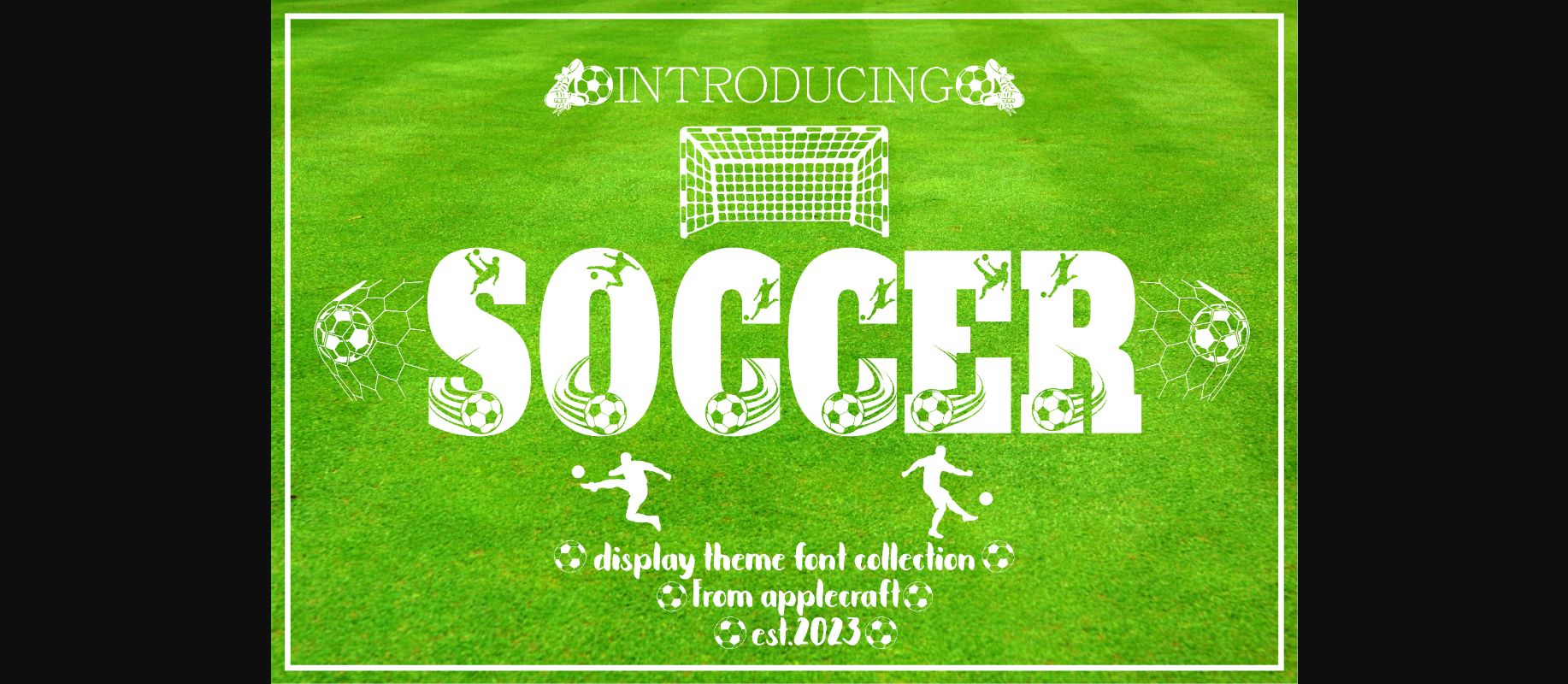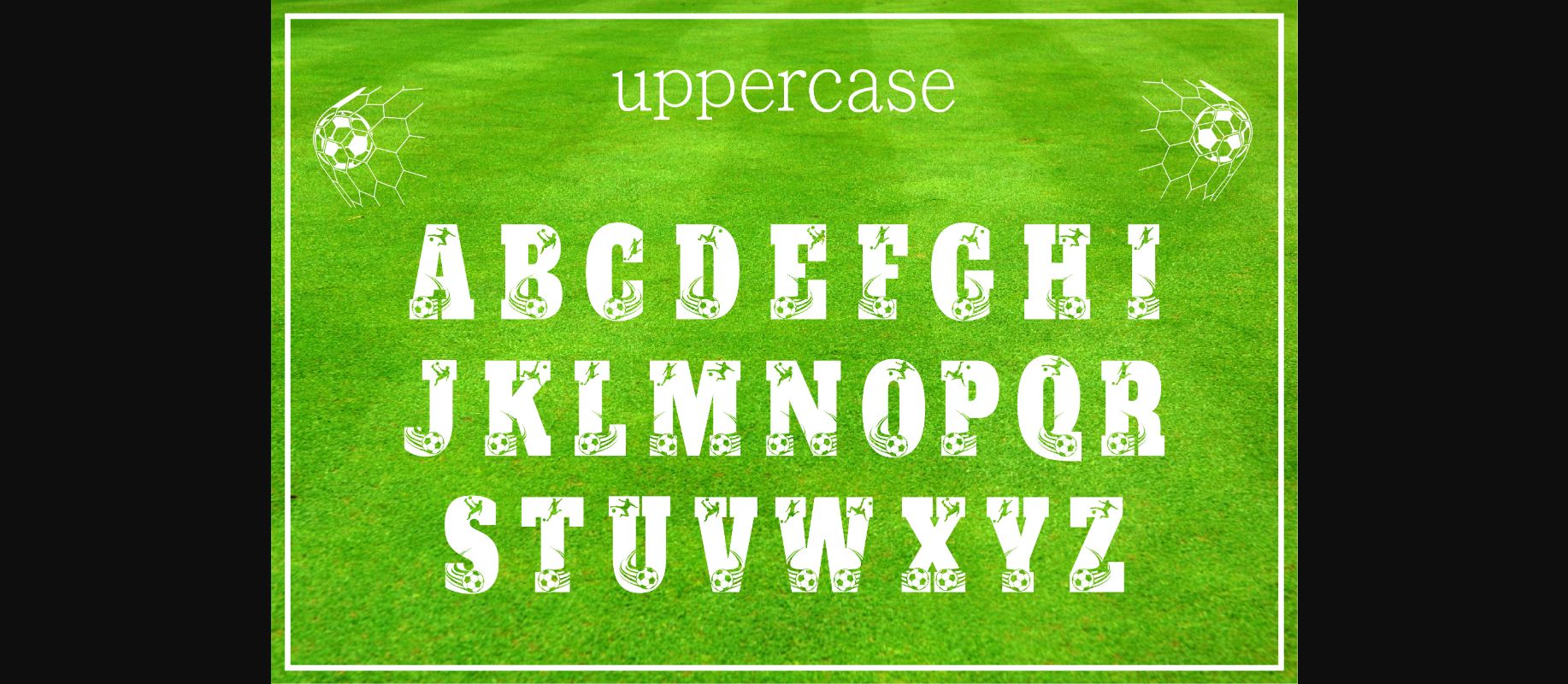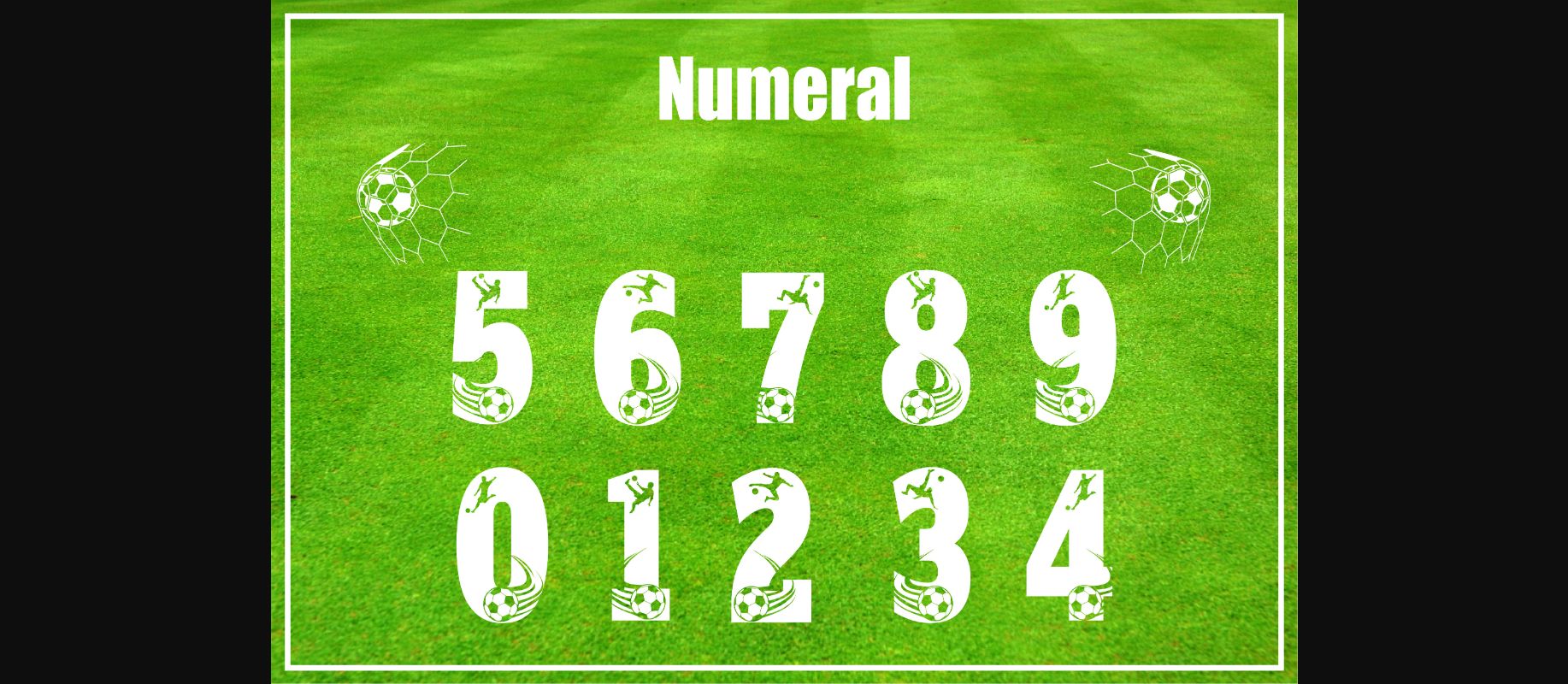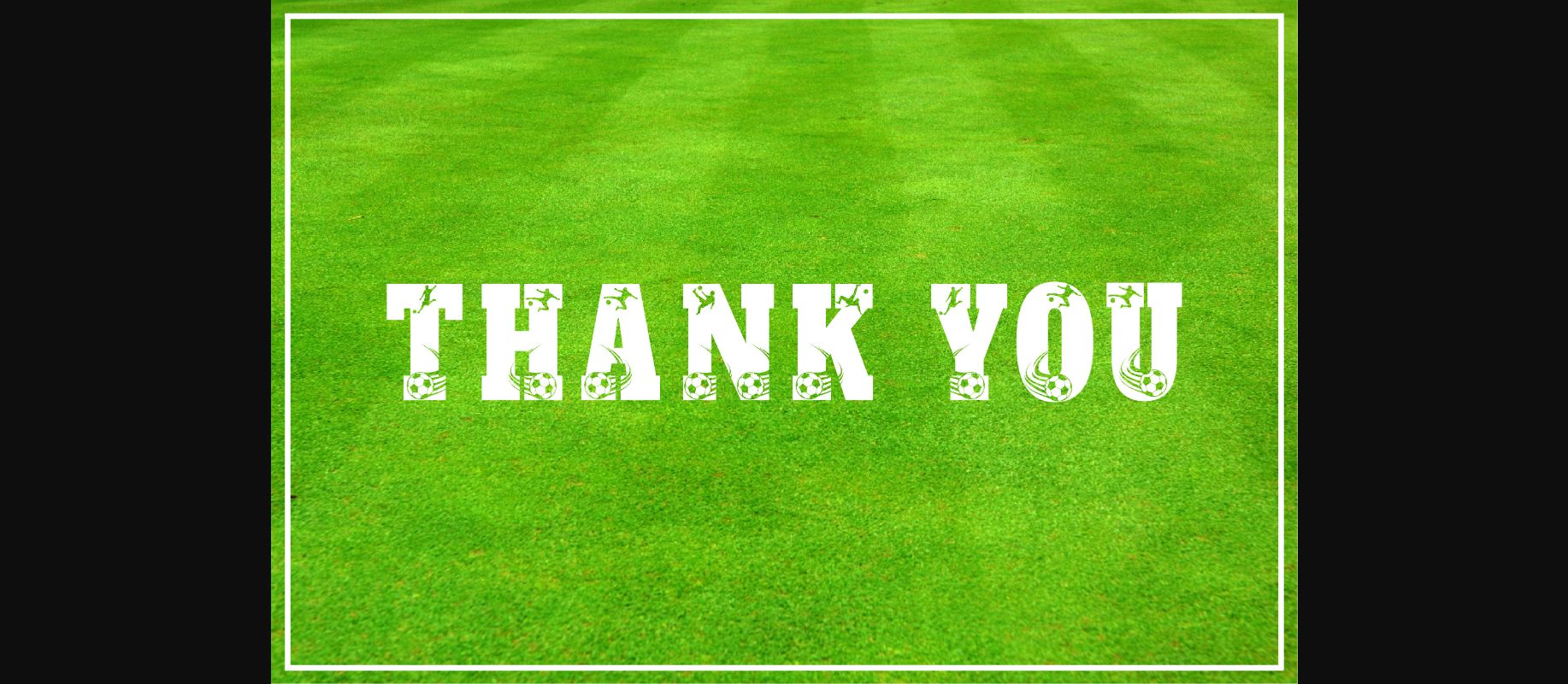
Soccer Font
About Soccer Font
Soccer is a cool and playful decorative font. It is ideal for children sporting events. Add this chunky lettered font to your designs, and notice how it makes them come alive!